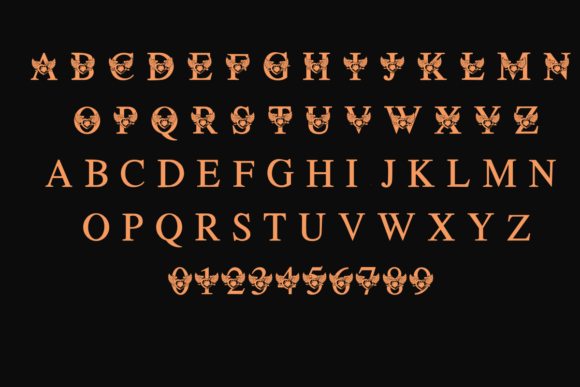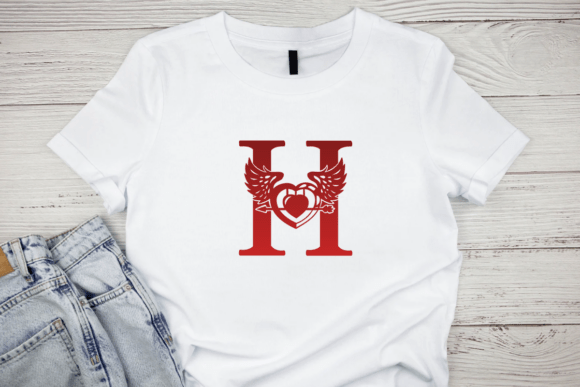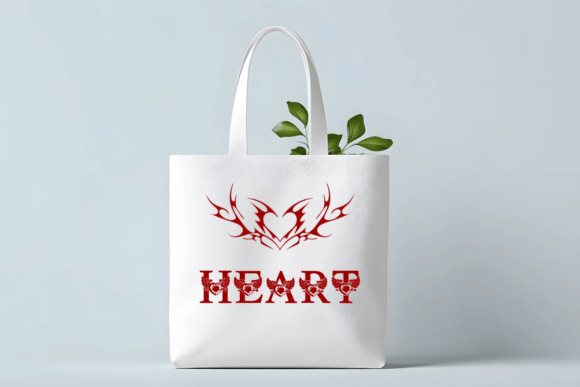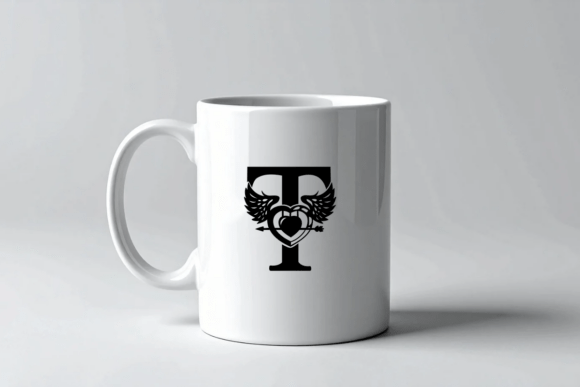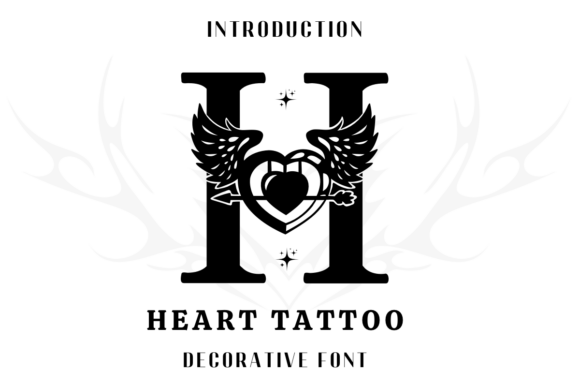
Heart Tattoo Font: A Bold Decorative Typeface Inspired by Vintage Tattoo Culture
Are you looking for a font that embodies the essence of classic tattoo culture? Do you want to add a touch of edginess, rebellion, or romance to your design project? Look no further than the Heart Tattoo font, a bold decorative typeface that brings the spirit of vintage tattoo parlor artwork to your typography.
Inspired by Vintage Tattoo Parlor Artwork
The Heart Tattoo font is inspired by the iconic artwork of vintage tattoo parlors. Its design features dramatic serifs, intricate winged heart motifs, and strong, ornamental flourishes that evoke the nostalgia of traditional tattoo culture. Each character is crafted to resemble a work of inked art, making it perfect for designs that require a bold, eye-catching statement.
Key Features of Heart Tattoo Font
- Dramatic Serifs: The font features bold, dramatic serifs that add a touch of elegance and sophistication to your designs.
- Intricate Winged Heart Motifs: The winged heart centerpiece is a symbolic touch that adds a sense of love, freedom, and strength to your designs.
- Strong, Ornamental Flourishes: The font’s ornamental flourishes add a touch of drama and flair to your designs, making them perfect for headlines, titles, and logos.
The Heart Tattoo font is versatile and can be used for a wide range of design projects, including:
- Branding Projects: Use the Heart Tattoo font to create bold, eye-catching logos and branding materials that make a statement.
- Logo Designs: The font’s unique design makes it perfect for creating custom logos that stand out from the crowd.
- Posters: Add a touch of edginess to your posters with the Heart Tattoo font, perfect for promoting concerts, events, or products.
- Album Covers: The font’s bold, decorative design makes it ideal for creating striking album covers that grab attention.
Ideal for Edgy, Rebellious, or Romantic Designs
The Heart Tattoo font is perfect for designs that require an edgy, rebellious, or romantic vibe. Whether you’re creating a design for a:
- Rock Band: The font’s bold, dramatic design makes it perfect for rock band logos, posters, and merchandise.
- Tattoo Shop: The font’s vintage tattoo parlor inspiration makes it a natural fit for tattoo shop branding and advertising materials.
- Valentine’s Day Event: Add a touch of romance to your Valentine’s Day designs with the Heart Tattoo font, perfect for creating striking invitations, posters, and social media graphics.
A Storytelling Piece in Its Own Right
The Heart Tattoo font is more than just a display type – it’s a storytelling piece that can add depth and meaning to your designs. The detailed winged heart centerpiece is a symbolic touch that can represent love, freedom, and strength, making it perfect for designs that require a powerful message.
In conclusion, the Heart Tattoo font is a bold decorative typeface that brings the essence of classic tattoo culture into your typography. With its dramatic serifs, intricate winged heart motifs, and strong, ornamental flourishes, this font is perfect for designers and crafters looking to add a touch of edginess, rebellion, or romance to their design projects. Whether you’re creating a logo, poster, album cover, or branding materials, the Heart Tattoo font is sure to deliver a striking impact.